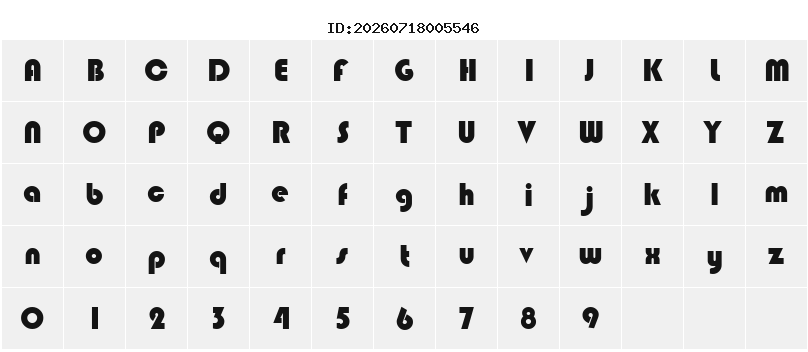
BRINLED Preview
• Font Name: BRINLED
• Font ID: Altsys Fontographer 3.5 BRINLED Regular
• Full Font Name: BRINLED Regular
• Version: Altsys Fontographer 3.5 3/17/97
• PostScript Name: BRINLED Regular
• Character Count: 221
About BRINLED.ttf
BRINLED.ttf is a modern, elegant sans-serif font designed for ultimate readability and visual harmony. Perfect for branding, headlines, web design, and print materials.